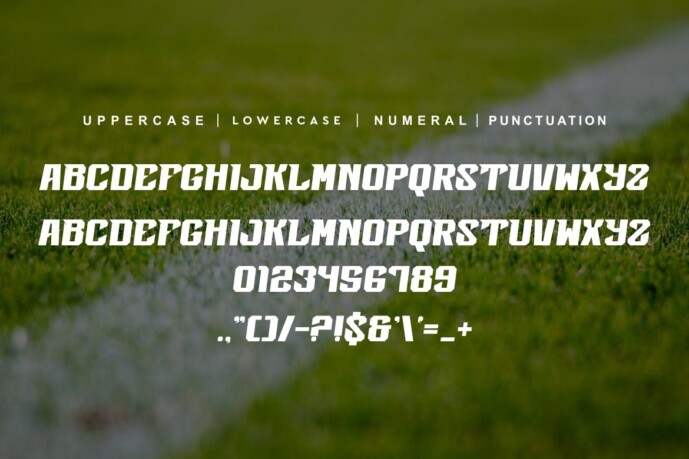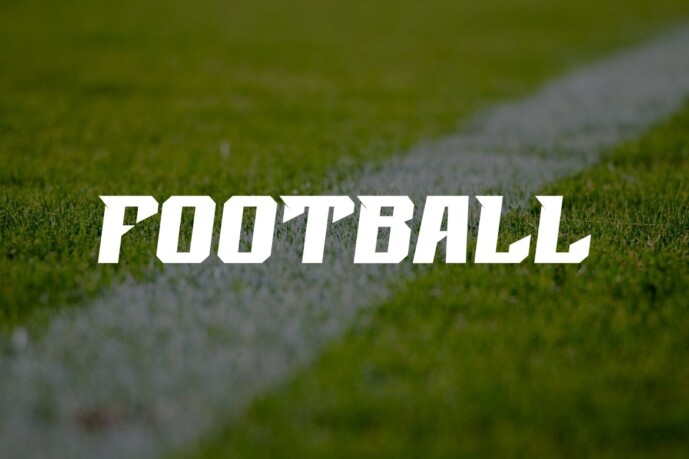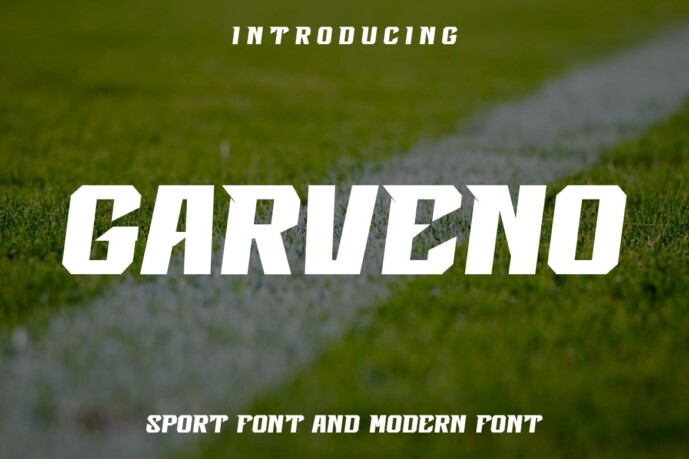
Garveno Font
Garveno Font – Sport and Modern Font are unique. Ready to be used for your designs, such as labeling, movie scene, poster, movie title, concerts, album covers, logos and much more.